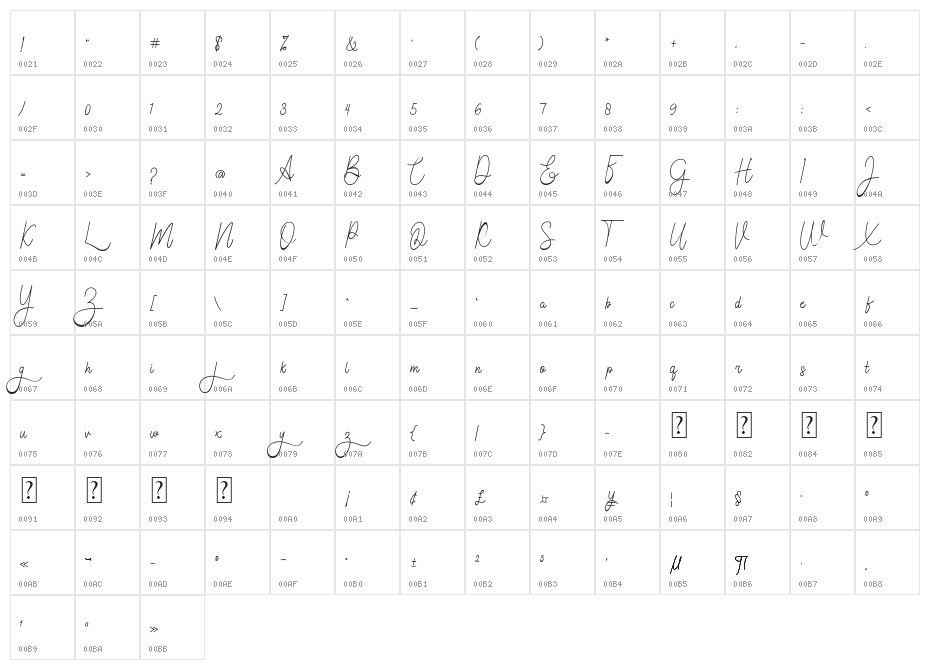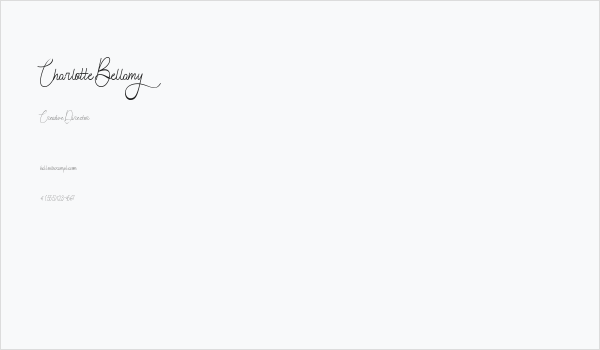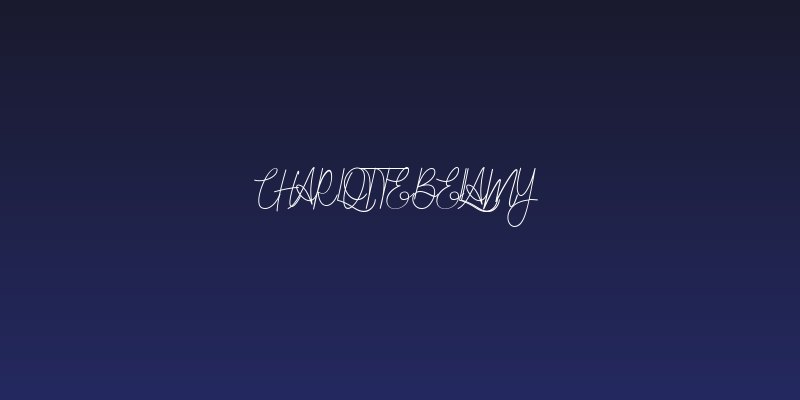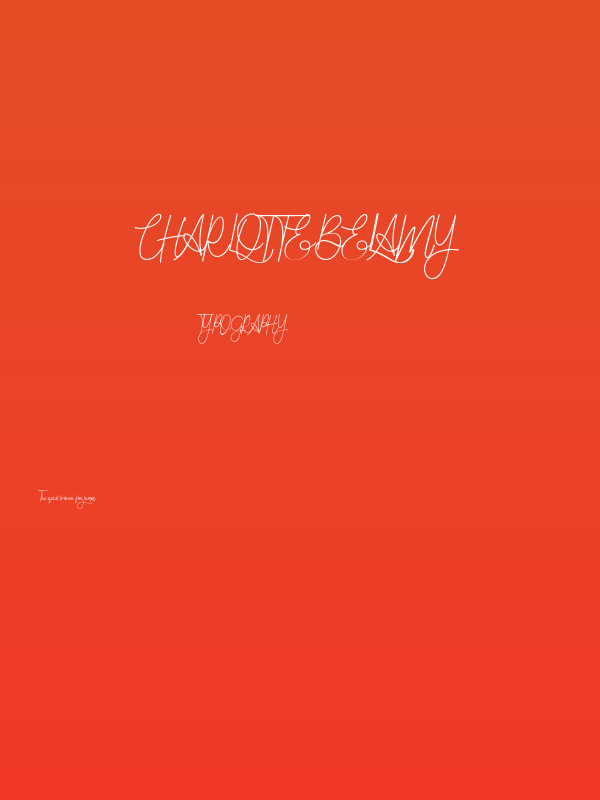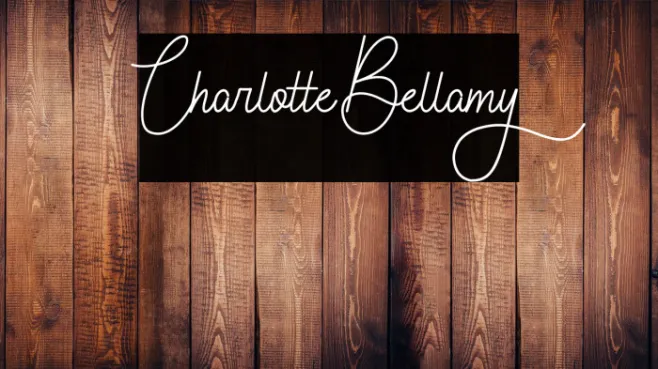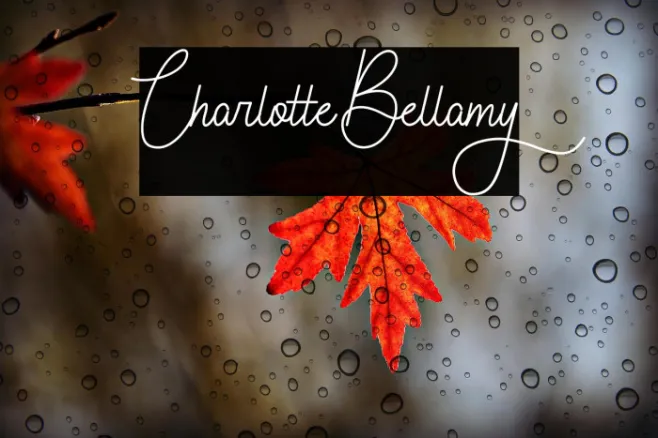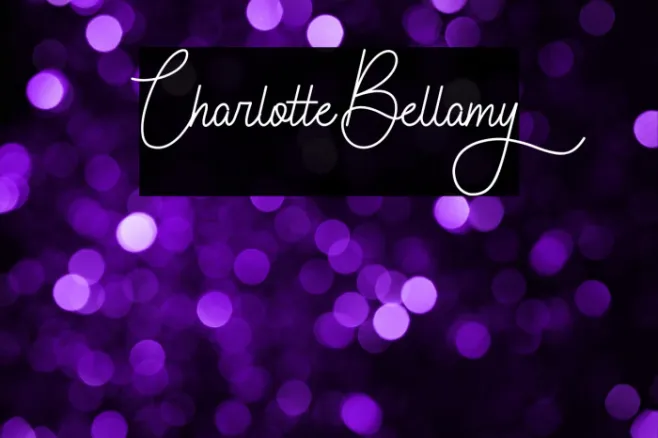
Charlotte Bellamy Font
Charlotte Bellamy Description
This font features an elegant and flowing script style, characterized by its intricate and decorative letterforms. The uppercase letters are particularly elaborate, with extended flourishes and loops that add a sense of sophistication and artistry. The lowercase letters maintain a consistent style, with smooth curves and a graceful appearance. The numerals and special characters are designed to complement the overall aesthetic, ensuring a cohesive look across all text. This font is ideal for projects that require a touch of elegance and refinement, such as wedding invitations, formal event programs, or high-end branding materials.
| Proposed Projects | Wedding invitations, formal event programs, high-end branding materials. |